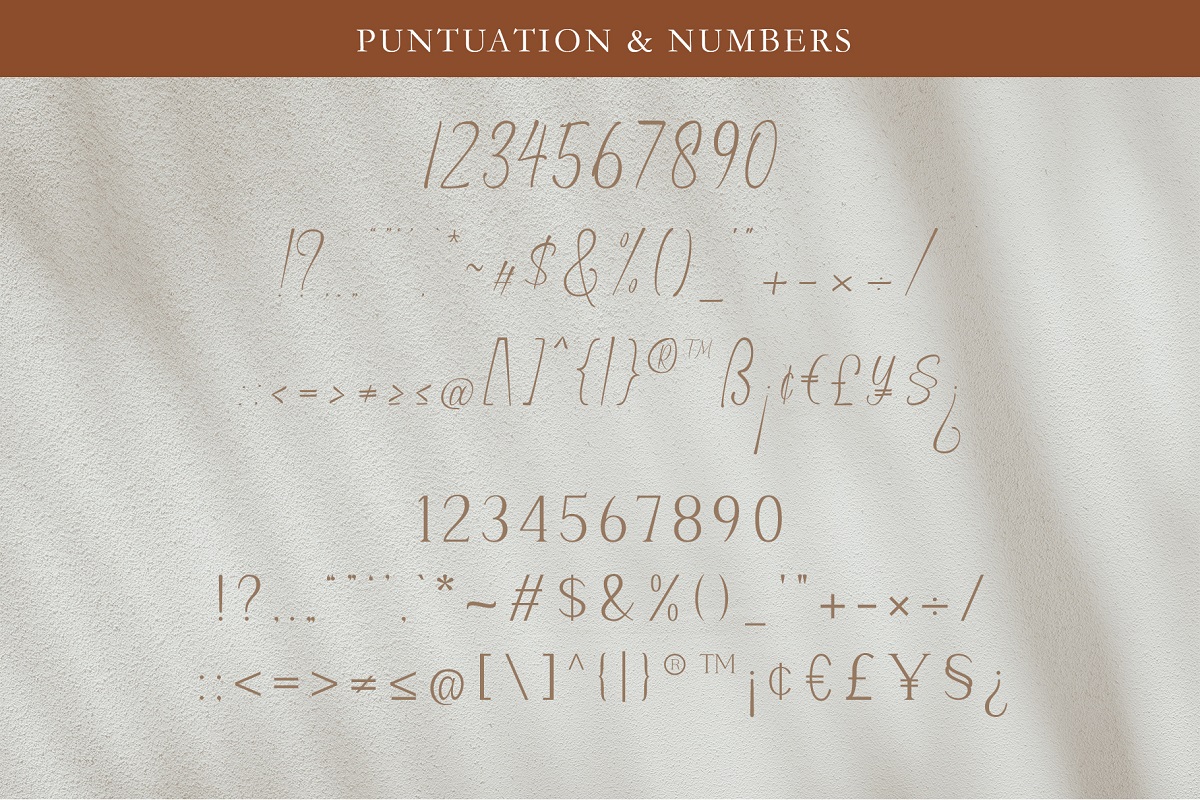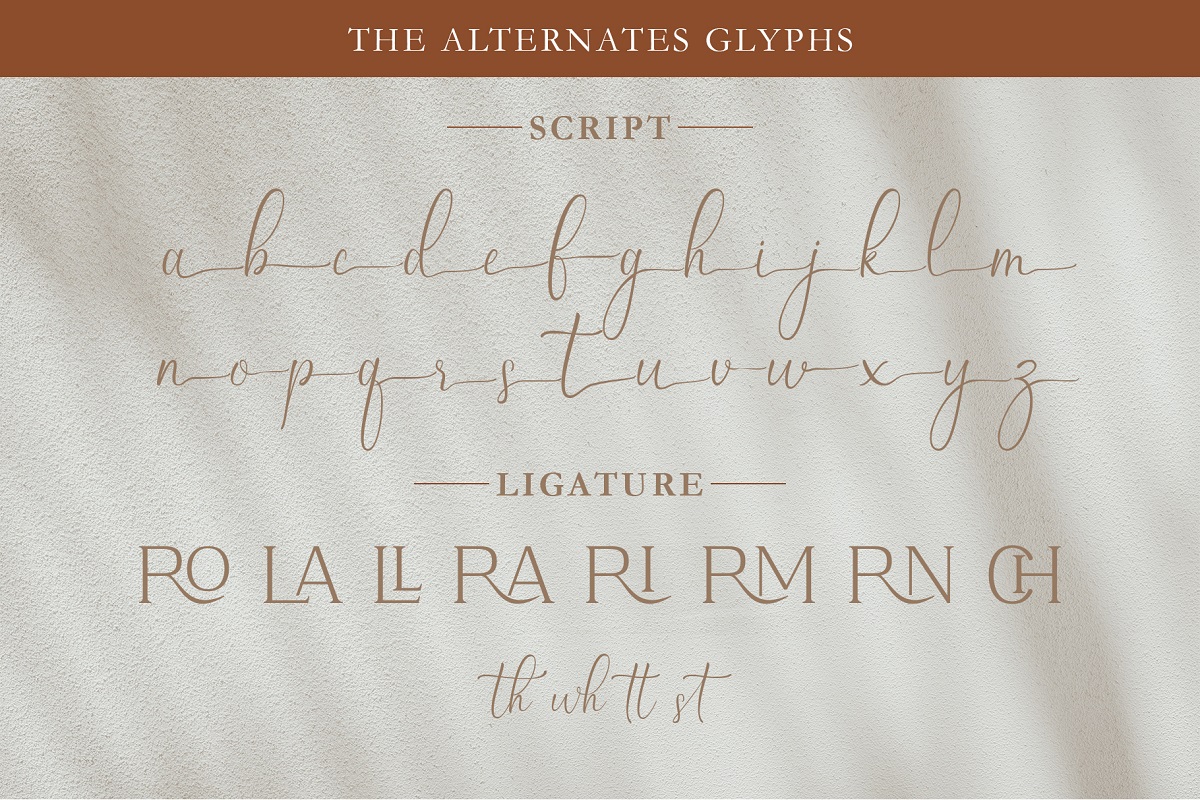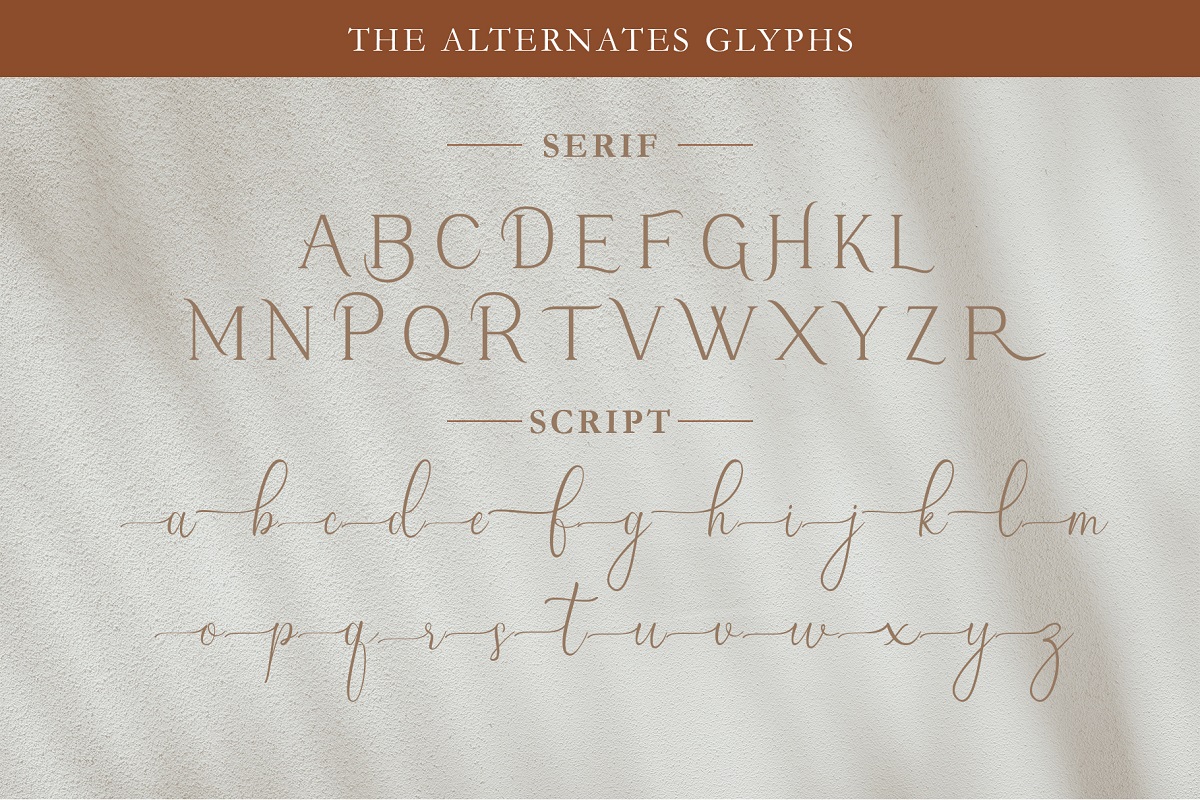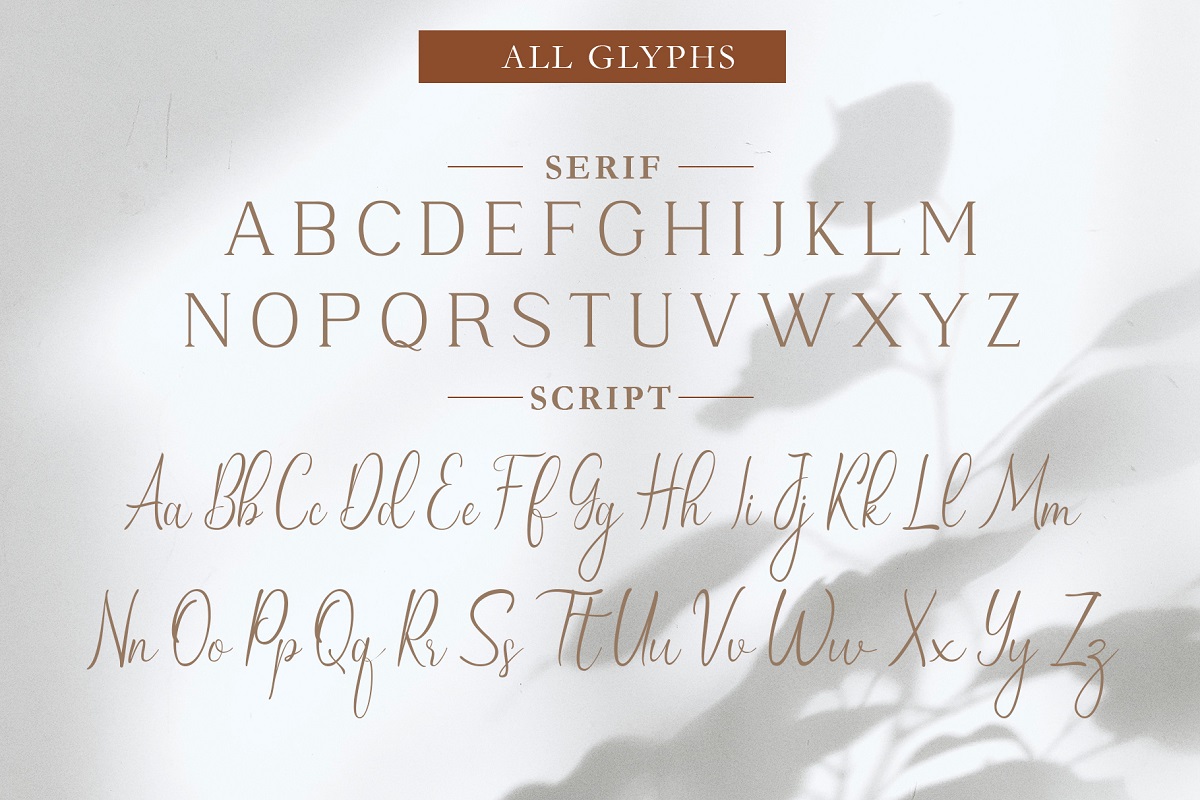
Refira Asry Font Duo
This is a stunning pair of luxury script and Serif fonts, designed to contrast & amp; compliment each other with elegant beauty and contemporary style.
- Refira AsryScript A clean, elegant hand-drawn script font containing upper & lowercase characters, all punctuation and numerals.
- Refira Asry Serif A stylish & modern all-caps serif containing uppercase characters, all punctuation & numerals.